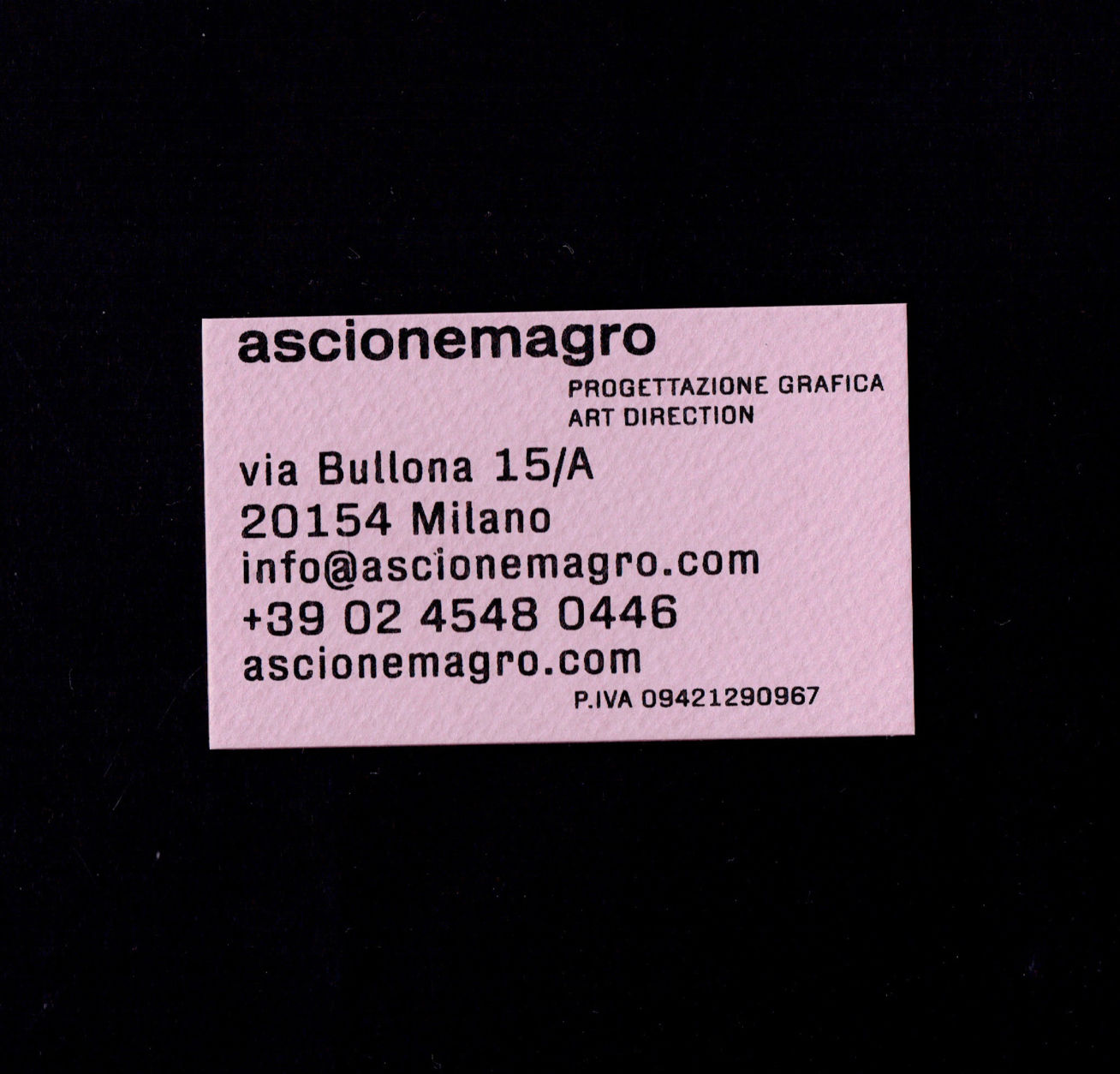
Italian Sans is a wide, industrial style font inspired by historical specimens held at the Central Lettering Archive at Central Saint Martins, London. The font is a prime example of a 20th century vernacular Grotesque. Available in Light, Regular, Medium, Semibold & Bold weights.
| Font name: | Italian Sans |
| Font category: | Sans |
| Styles: | Light Regular Medium Bold Semibold |
| Manufacturer: | A2-TYPE |
| Designer: | Henrik Kubel |